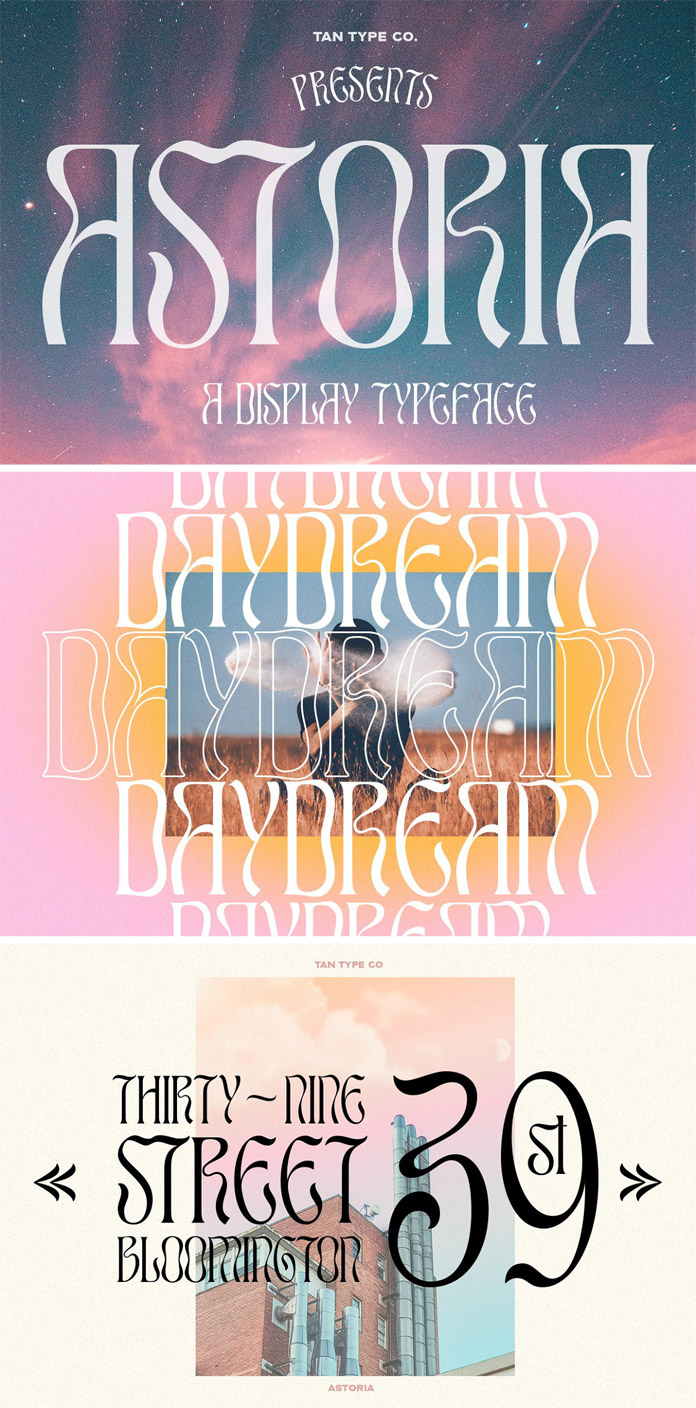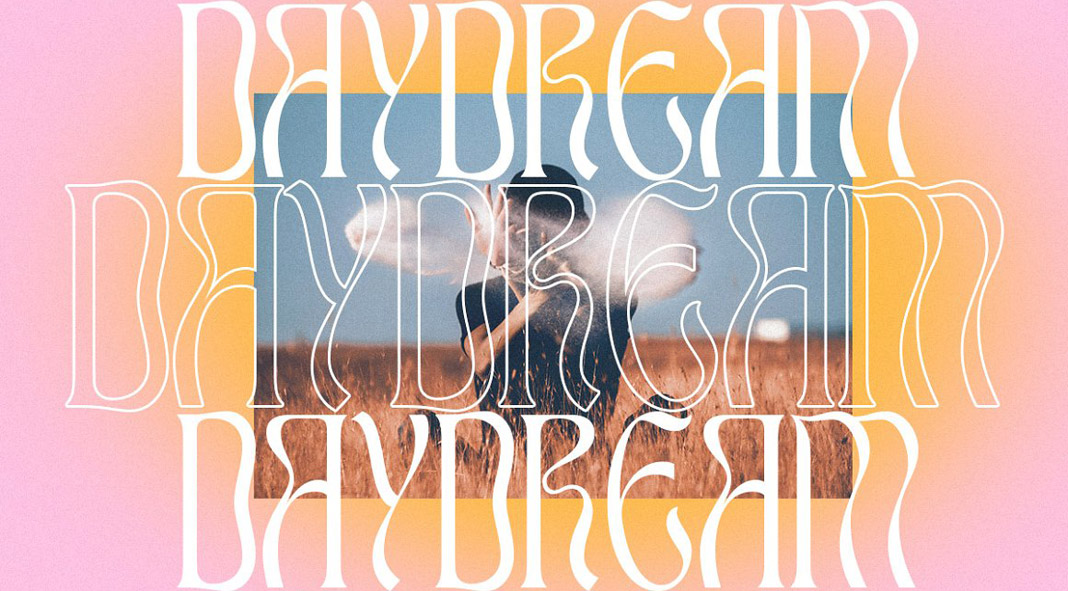
Say hello to TAN ASTORIA, a quirky display serif that spells fun.
TAN ASTORIA was designed by the masterminds at TanType. With its one-of-a-kind, decorative style influenced by both hippie chic of the 60s and psychedelic designs, this typeface can be used for a myriad of purposes such as headlines, text overlays, posters, clothing labels, packaging design elements, or website headers—to name just a few options!